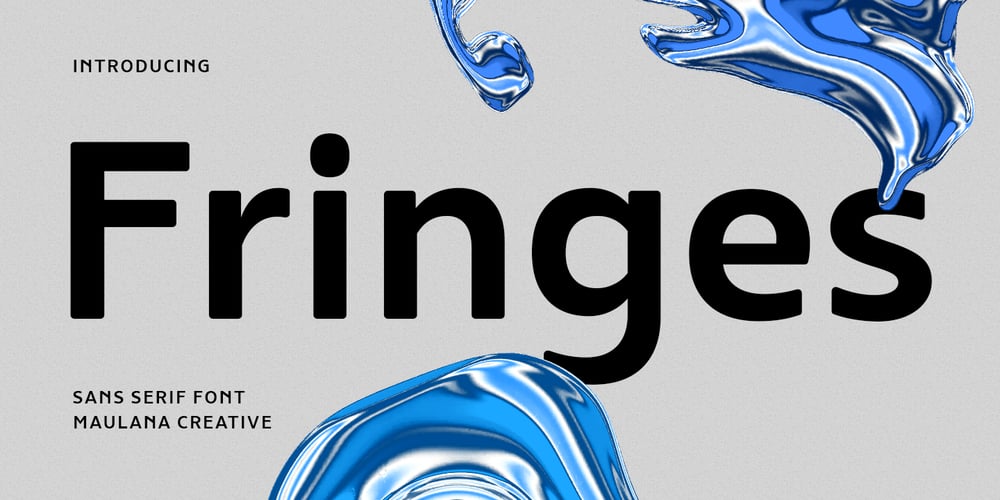
MC Fringes
MC Fringes font
MC Fringes Font Family was designed by Gilang Maulana and published by Maulana Creative. MC Fringes contains 1 styles and family package options. Fringes is a classic historical early sans serif font. Regular stroke, fun character with a bit of ligatures and alternates. To give you an extra creative work. Fringes font support multilingual more than 100+ language. This font is good for logo design, Social media, Movie Titles, Books Titles, a short text even a long text letter and good for your secondary text font with script or serif. Make a stunning work with Fringes font. Cheers, Maulana Creative